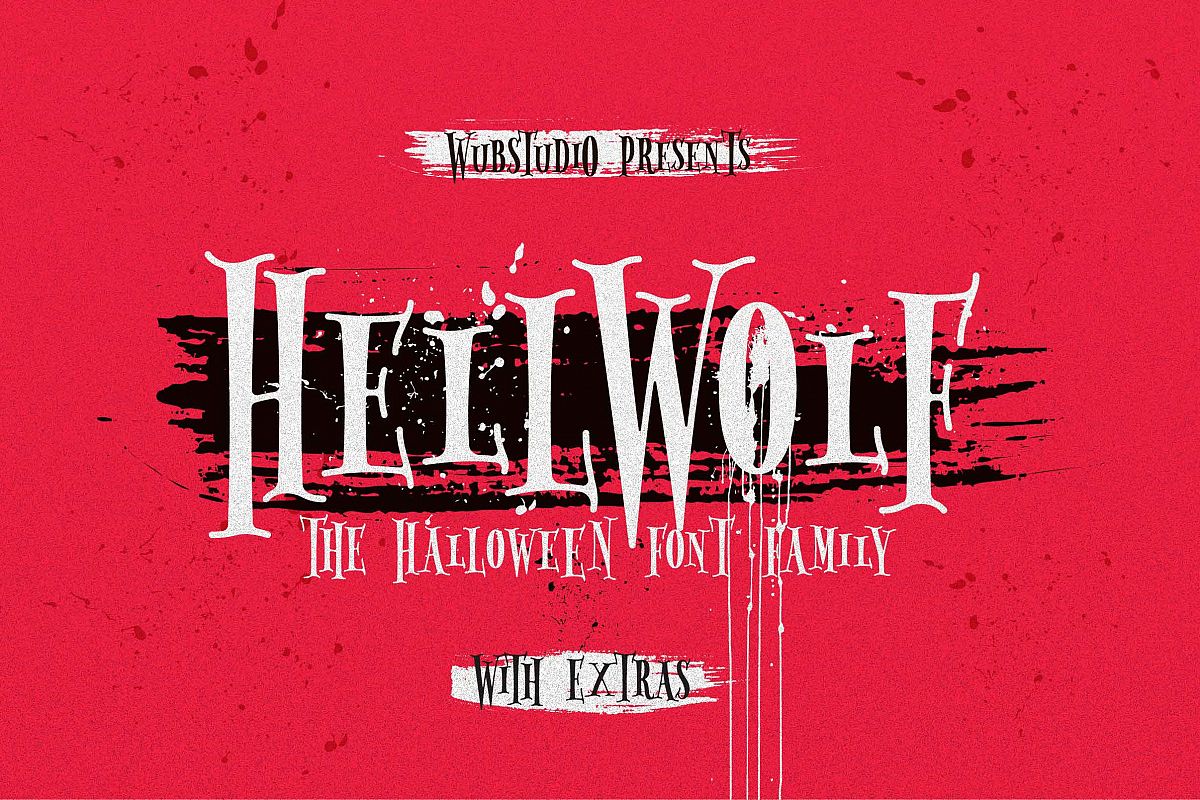
Hellwolf Typeface
GRAB IT FAST! This discount is only for October!==============================================================================Hellwolf Typeface is a serif font designed for Halloween. Messy anatomy is the character of this font which makes this font look creepy but still looks elegant and clean.Hellwolf has two families: Regular and Hollow. Both are very likely to be integrated into a single design. Although both of them are family, but each one has a different impression and character.Hellwolf is a package consisting of fonts, graphics, and design templates. This package will make it easier for you to make designs for the needs of your halloween party. There are many graphic choices there.===============================================================================Whats include?